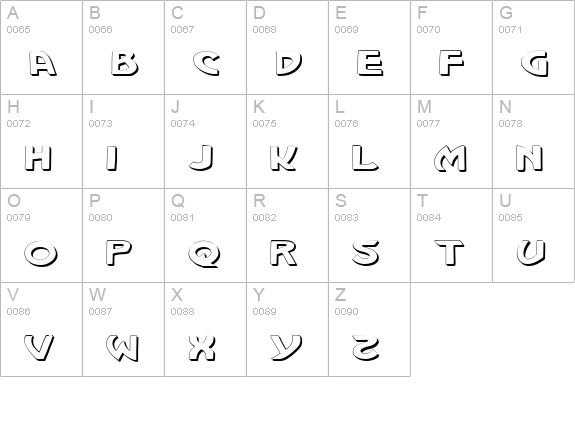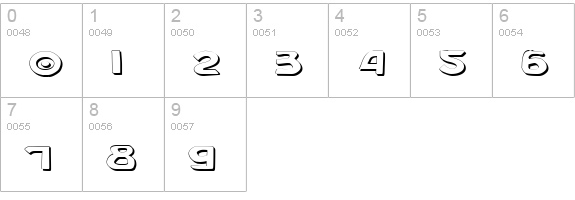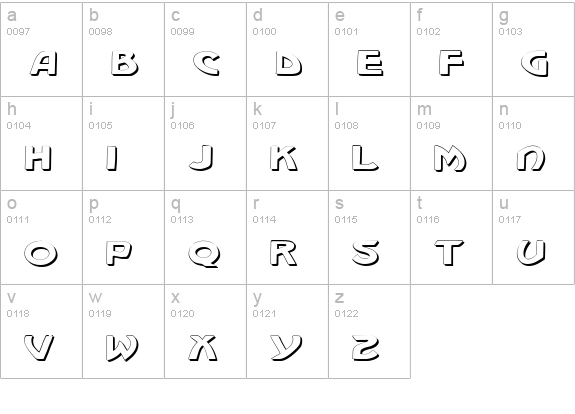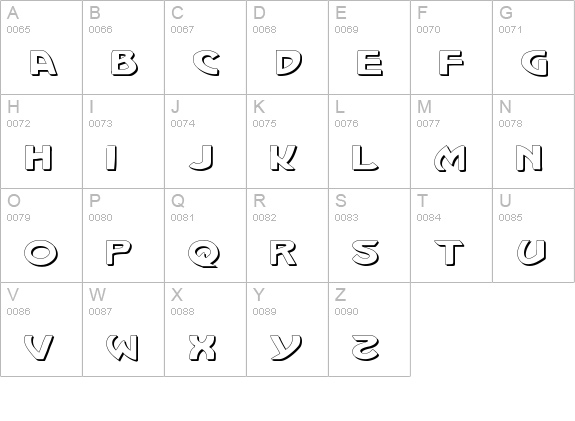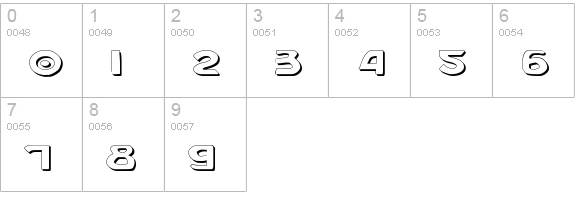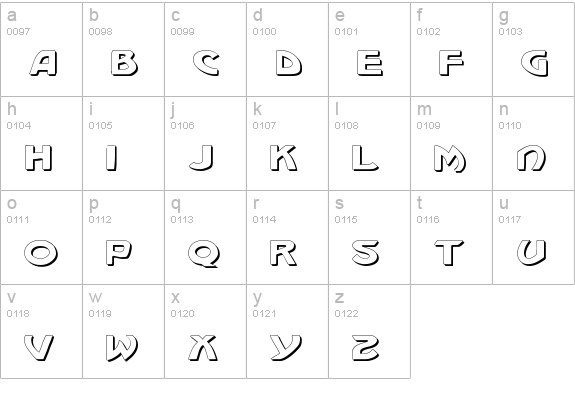
Machiavelli Shadow Font Details
The Machiavelli Shadow font exudes a sense of mystery and intrigue with its intricate details and bold design. Inspired by the cunning and strategic teachings of Machiavelli, this font captures the essence of power and authority. The Machiavelli Shadow font is perfect for creating eye-catching headlines, logos, and branding materials that demand attention. Its edgy and dramatic style adds a touch of sophistication to any project, making it ideal for those who seek to make a bold statement. Best of all, the Machiavelli Shadow font is available for free download at FontsMarket.com. Whether you're a designer looking to add a touch of drama to your creations or a content creator in search of a unique font for your projects, the Machiavelli Shadow font is sure to impress. Download it today and let your creativity shine with this captivating and powerful font.